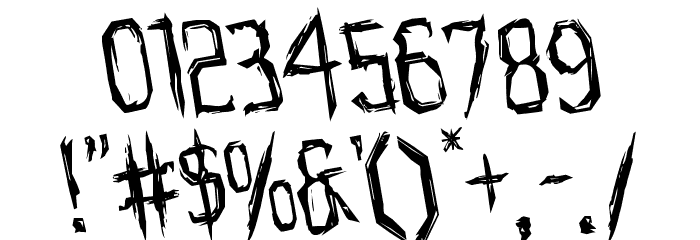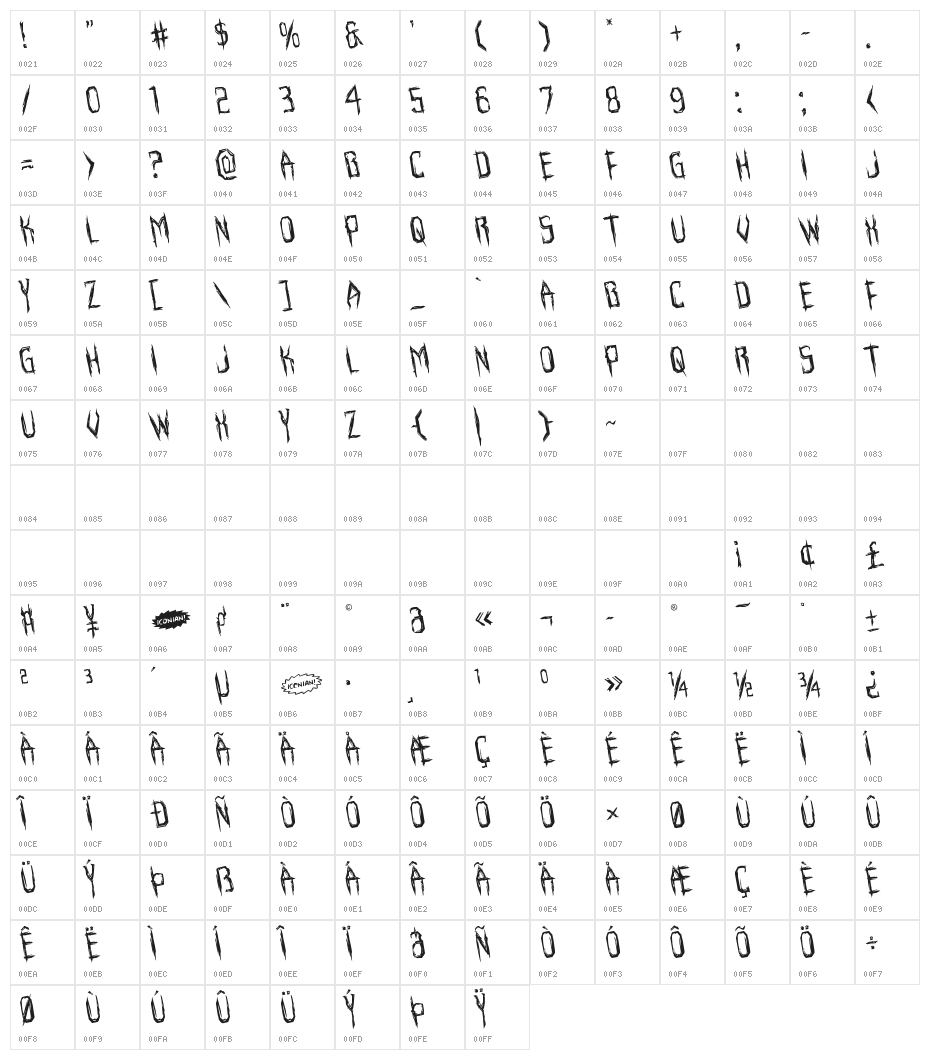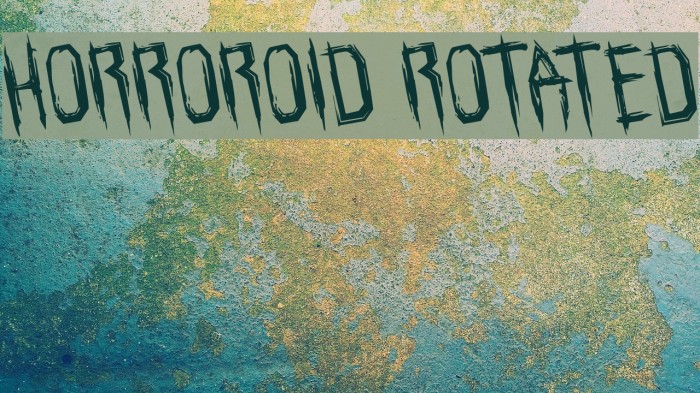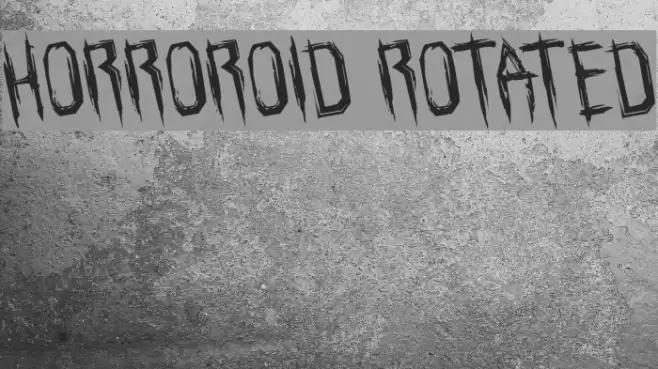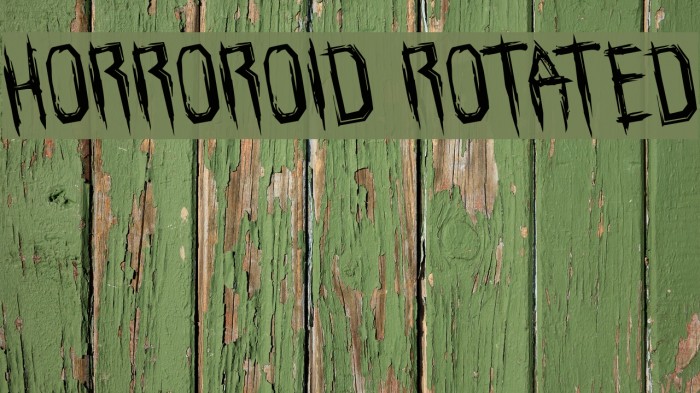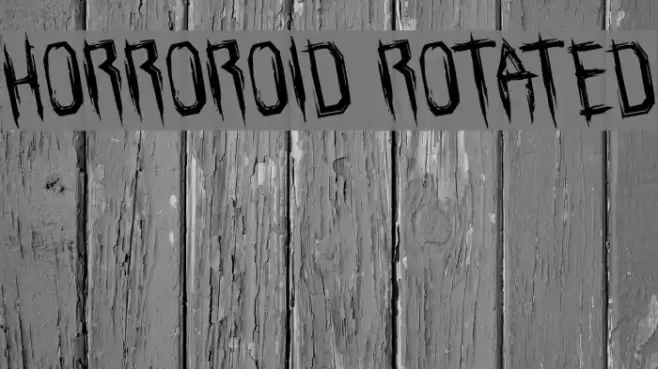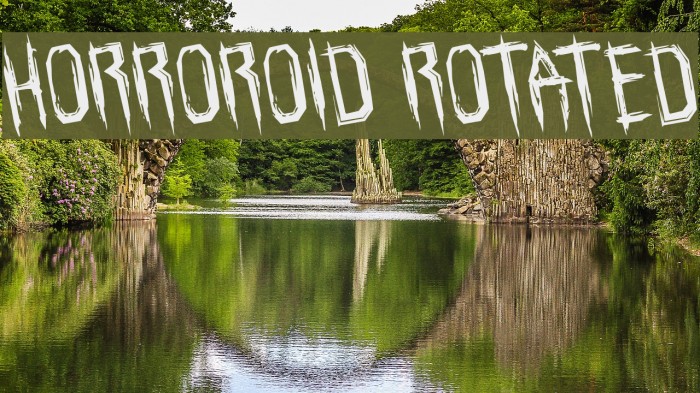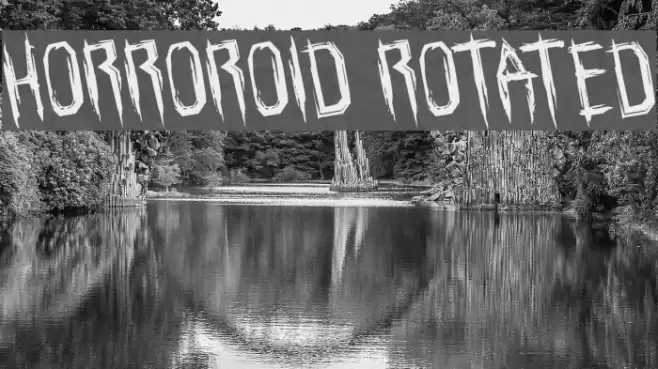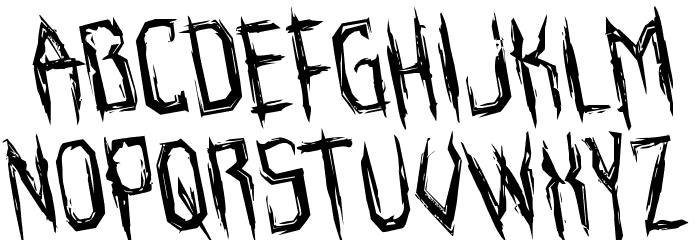
Horroroid Rotated Font
Horroroid Rotated Description
This font exudes a chilling and eerie aesthetic, characterized by jagged, irregular strokes that mimic the appearance of torn or scratched surfaces. The letters are sharp and angular, with a distressed texture that enhances its horror-themed design. The uppercase and lowercase letters maintain a consistent style, contributing to a cohesive yet unsettling visual impact. Numbers and special characters follow the same jagged pattern, ensuring uniformity across all glyphs. This font is ideal for creating a spooky atmosphere, making it perfect for Halloween-themed projects or horror movie posters.